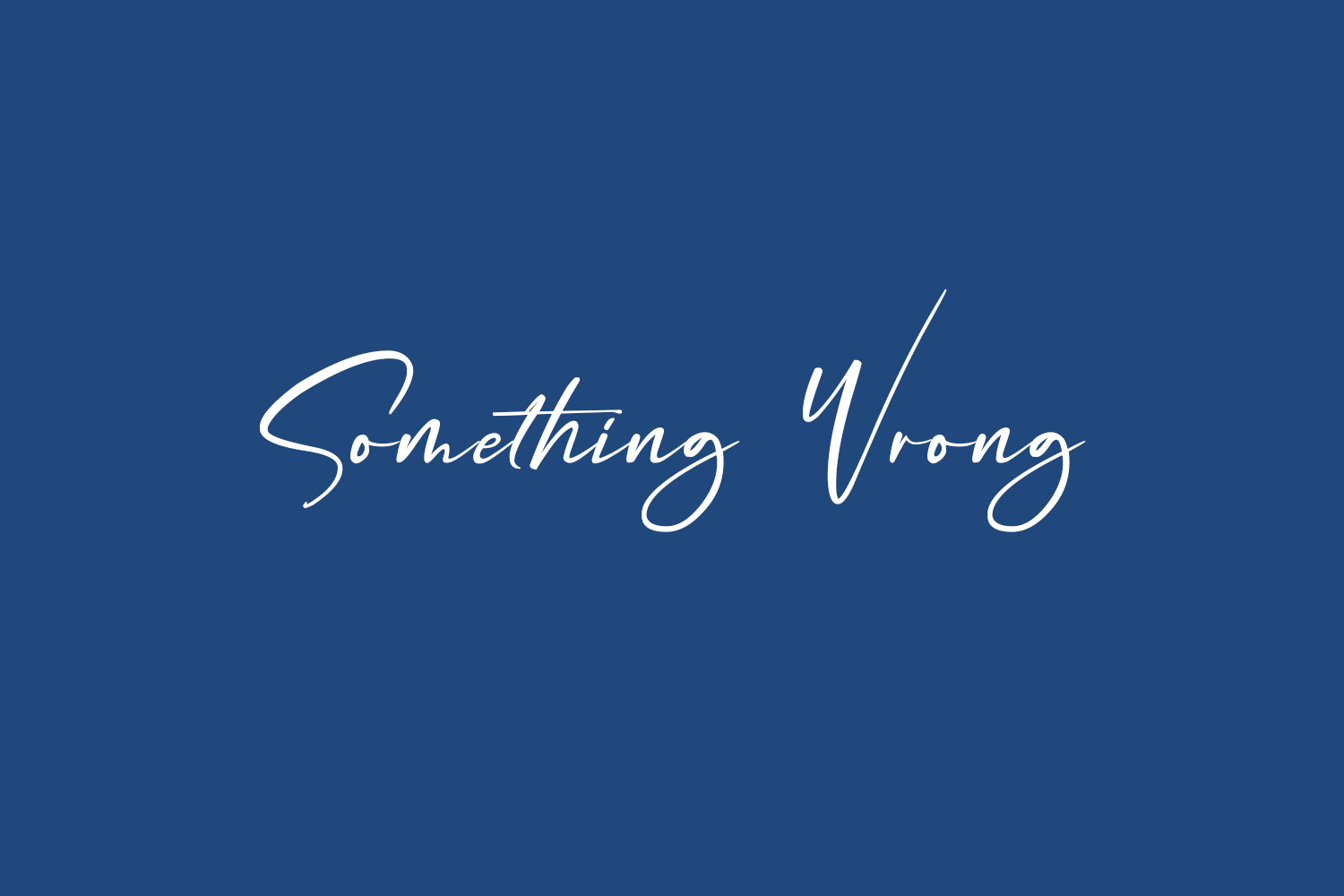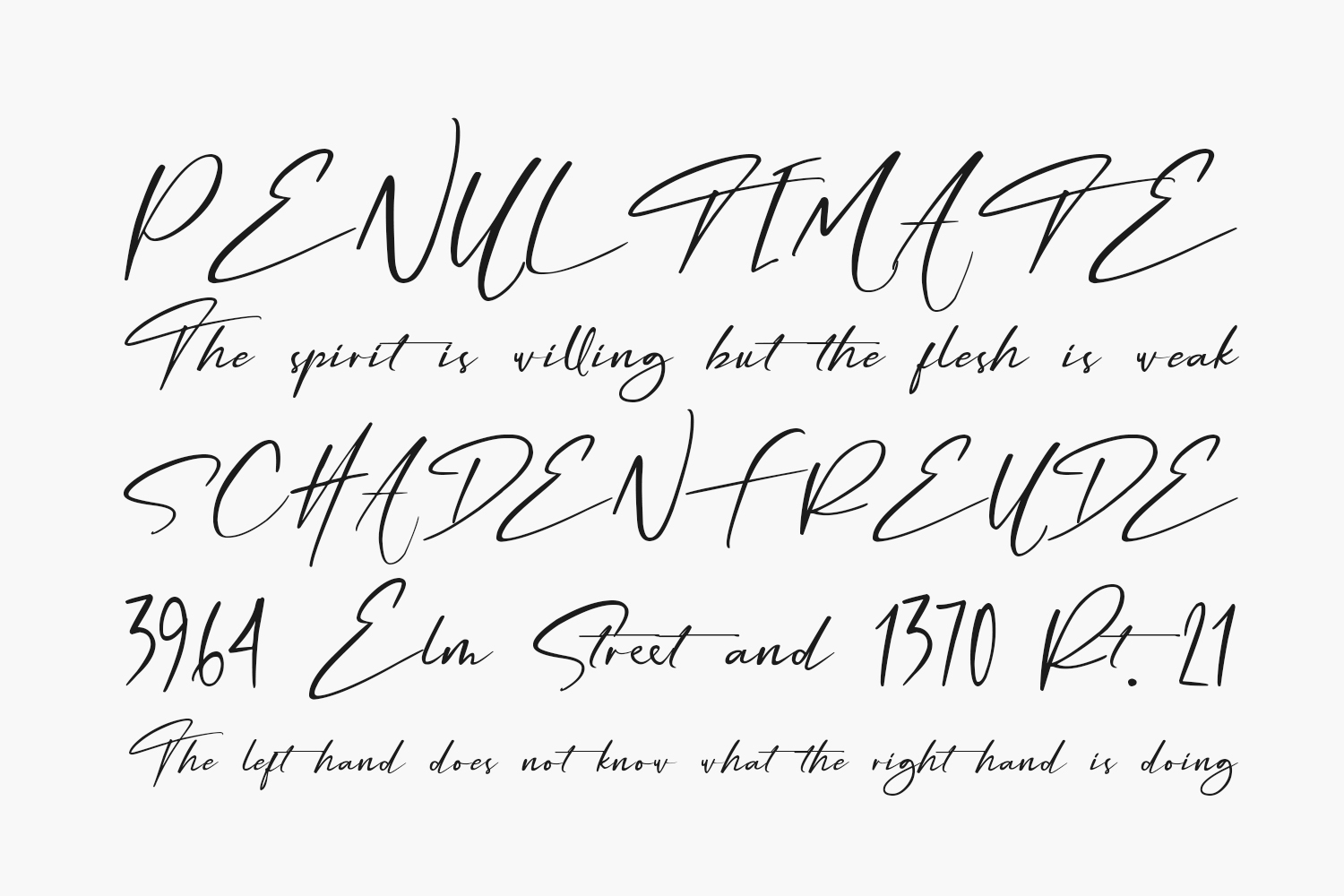
Something Wrong Free Font is a light handwritten font, featuring a unique stunning impact. It will add a luxury spark to any design project that you wish to create. Something Wrong Free Font was designed by Zamjump and is free for personal use only. Please purchase the full version for commercial use.